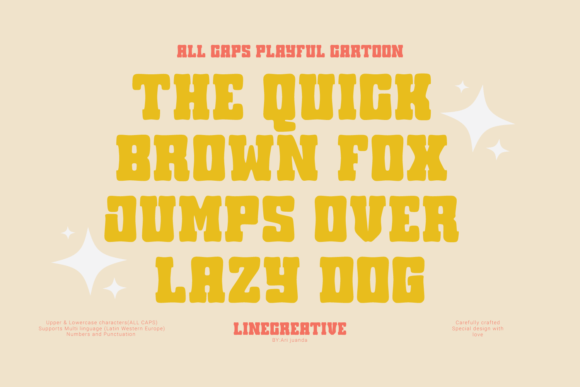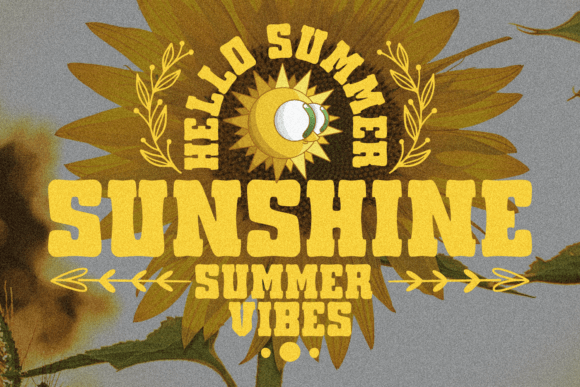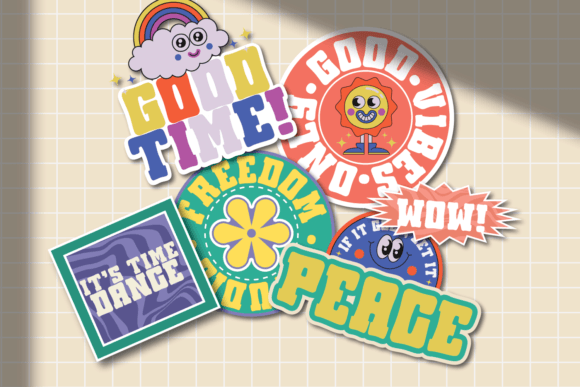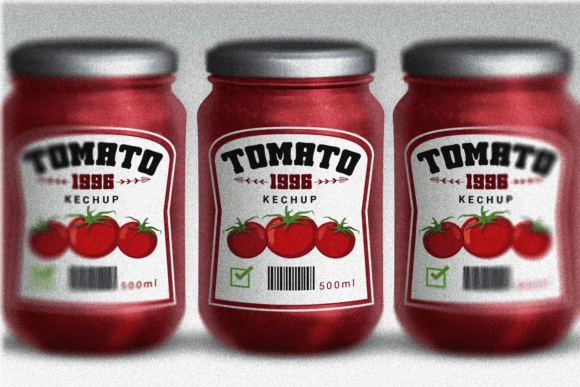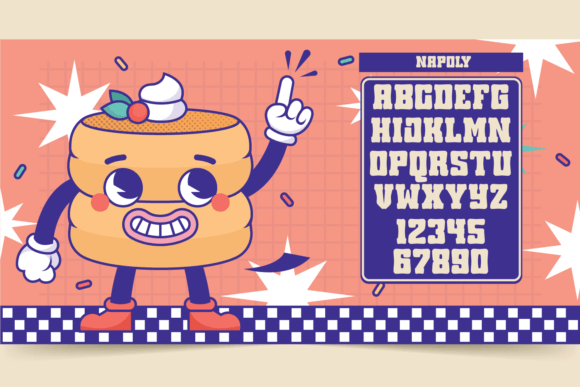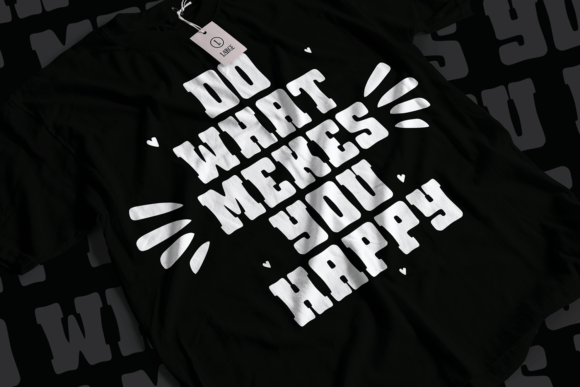
Introduction to Napoly Font
As a designer, you’ve probably experienced that moment when a font suddenly sparks an idea for your next creative project. For me, it was the discovery of the Napoly Font – a retro groovy font that instantly transported me back to the 70s. Its unique rounded corners and bold style have a way of making any design stand out. Whether you’re working on a retro-themed project or simply looking for a font that exudes high quality, the Napoly Font is an excellent choice.
With its free download option and transparent background, the Napoly Font is a versatile design resource that can be easily integrated into various projects. Its bold style makes it perfect for creating eye-catching and memorable designs. As a designer, having access to a high-quality font like the Napoly Font can be incredibly valuable, especially when working on tight deadlines or with limited design resources.
Key Features of Napoly Font
- Unique and stylish font with a transparent background, perfect for adding a touch of elegance to your designs.
- Designed to be highly legible, making it perfect for use in body text, headings, and titles.
Honest Review: Napoly Font
I recently had the opportunity to work with the Napoly Font, and I must say it’s been a game-changer for my creative projects. This font is perfect for anyone looking for a high-quality design resource that’s easy to use.
- ✨ Unique design: The Napoly Font has a distinctive, modern aesthetic that’s perfect for adding a touch of sophistication to your designs.
- ✨ Transparent background: I love that this font has a transparent background, making it easy to customize and integrate into any design project.
While the Napoly Font is an excellent addition to any design toolkit, I did encounter a few limitations. ⚠️ The font may not be suitable for very large-scale projects, as it can become pixelated if not properly scaled.
Overall, I’m thoroughly impressed with the Napoly Font. Its unique design, transparent background, and free download make it an excellent resource for any creative project. I highly recommend giving it a try and seeing how it can elevate your designs.
Getting the Most Out of Napoly Font
For the best results, use the Napoly Font on a transparent background and combine it with other design elements to create visually appealing designs. Experiment with different font sizes, colors, and arrangements to enhance the overall aesthetic of your project.
The Napoly Font is suitable for various design applications, including logos, business cards, brochures, and social media graphics. Its high-quality design and transparent background make it an ideal choice for creative projects requiring a professional look.